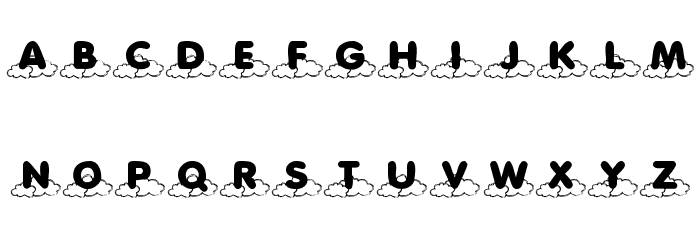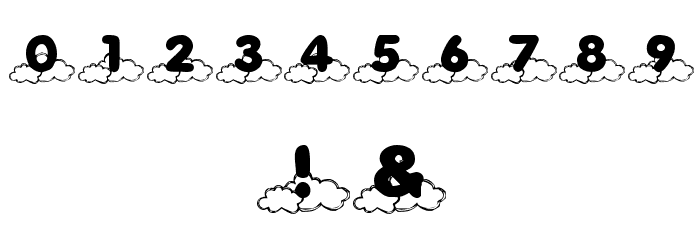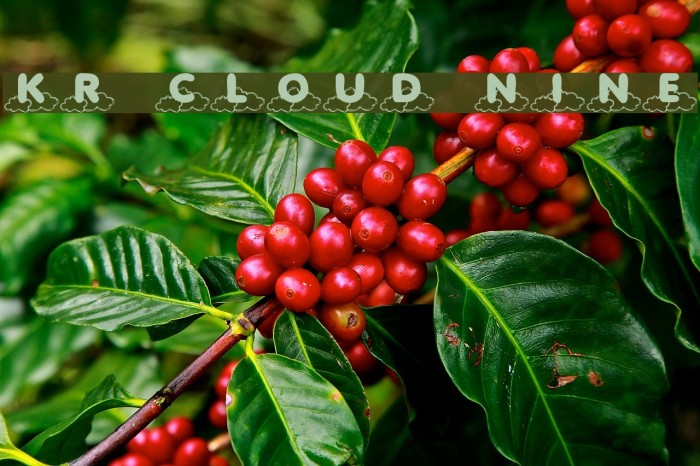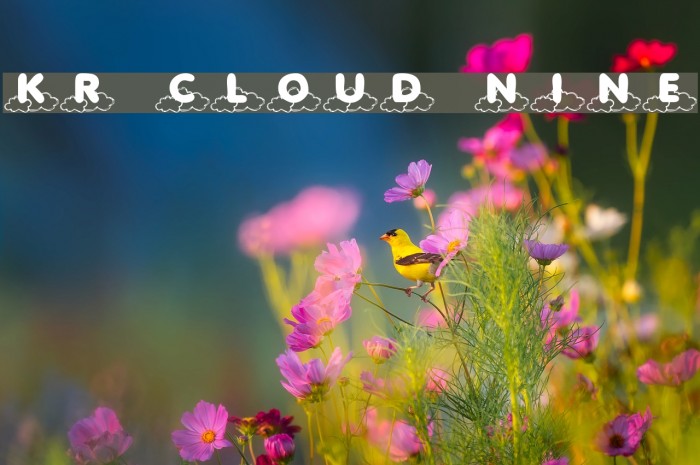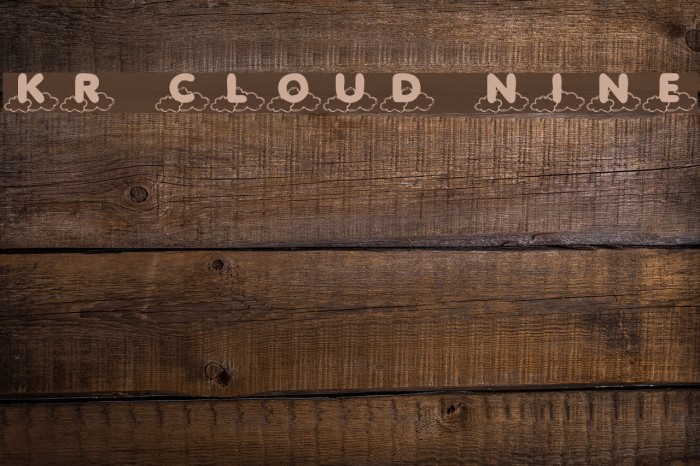
KR Cloud Nine Font
This playful and whimsical font features bold, rounded characters that rest atop fluffy cloud illustrations. The design evokes a sense of lightness and fun, making it ideal for projects that aim to convey a cheerful and imaginative tone. Each letter and number is distinct, with a consistent style that maintains readability while adding a decorative flair. The clouds beneath each character add a unique touch, making the font stand out in creative applications. The overall appearance is both charming and eye-catching, suitable for a variety of uses where a playful aesthetic is desired.
A playful, cloud-themed font with bold, rounded characters.
- Proposed Projects: Ideal for children's books, playful branding, greeting cards, and whimsical posters.
- Overall Style: Whimsical
- Use Case: Headlines, Logos, Decorative text